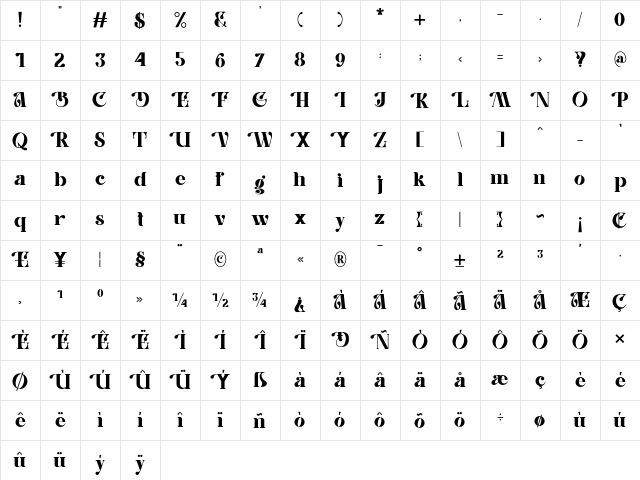
Jabgiki Regular Free Font
Jabgiki Regular
Foundry: Vultype Co
Designer: Vultype Co
Design Context for Jabgiki
Jabgiki is a composed and adaptable typeface that performs quietly and consistently across a wide range of design contexts.